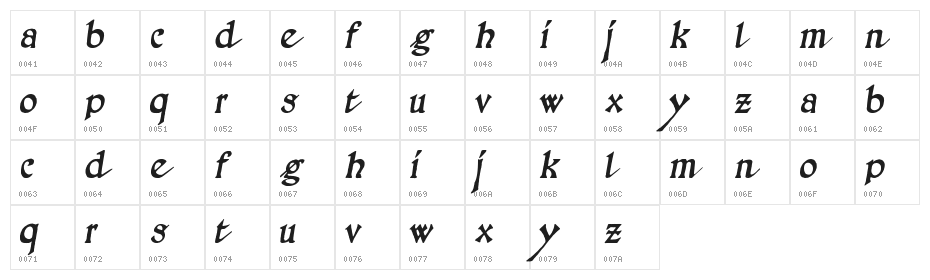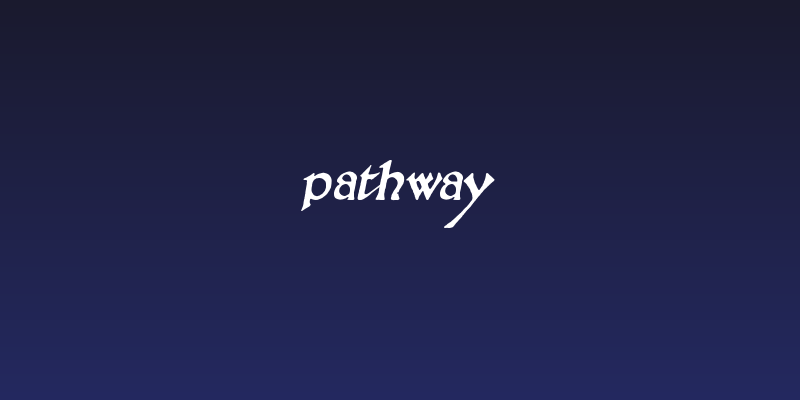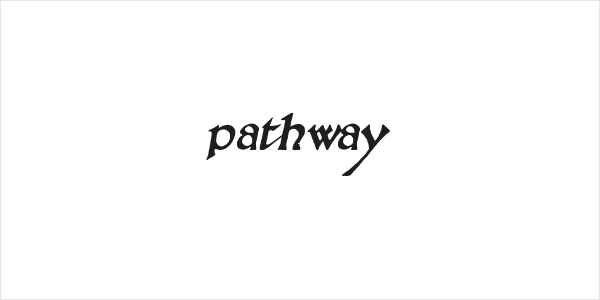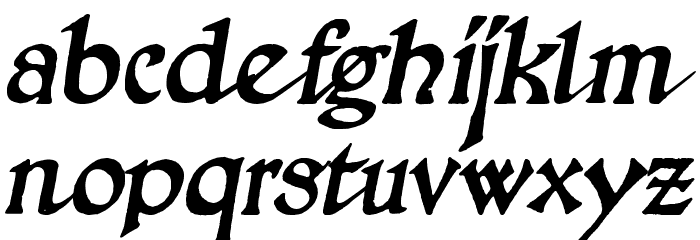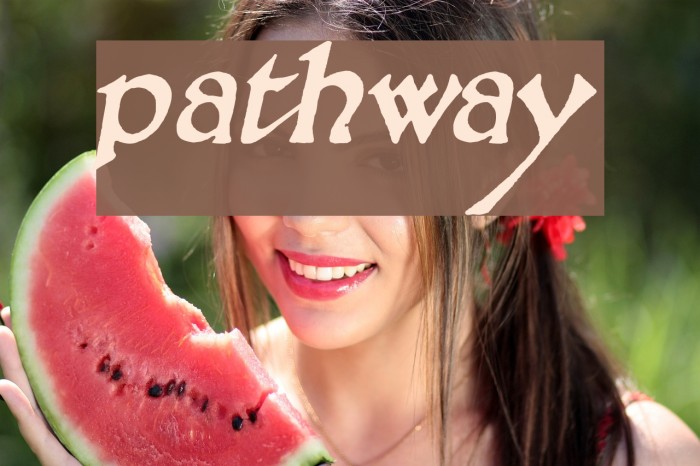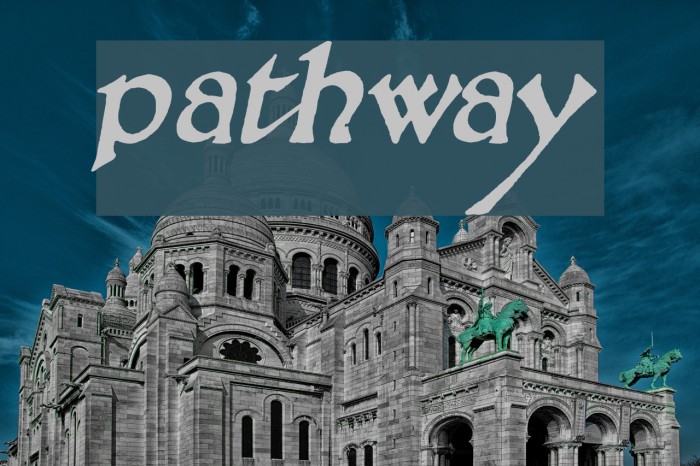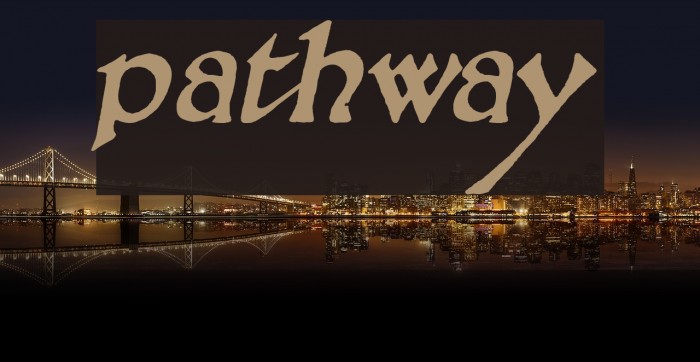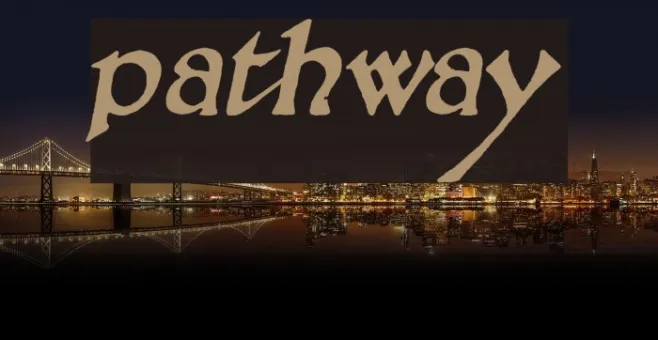
Pathway Font
Pathway Description
This font features a dynamic and expressive style, characterized by its sharp, angular strokes and a slight slant that gives it a sense of movement and energy. The letters are crafted with a calligraphic flair, combining both elegance and boldness. The uppercase and lowercase letters maintain a consistent style, with distinctive flourishes on certain characters like 'f', 'g', and 'j'. The overall appearance is both artistic and legible, making it suitable for creative and decorative applications.
| Proposed Projects | Ideal for invitations, artistic posters, branding, and any project requiring a touch of elegance and flair. |